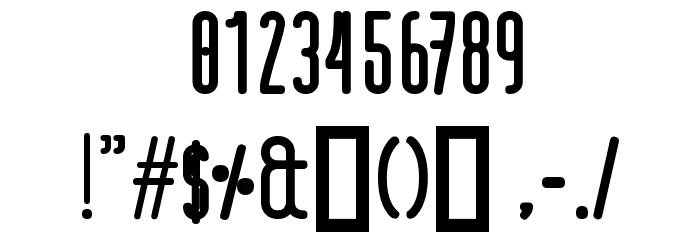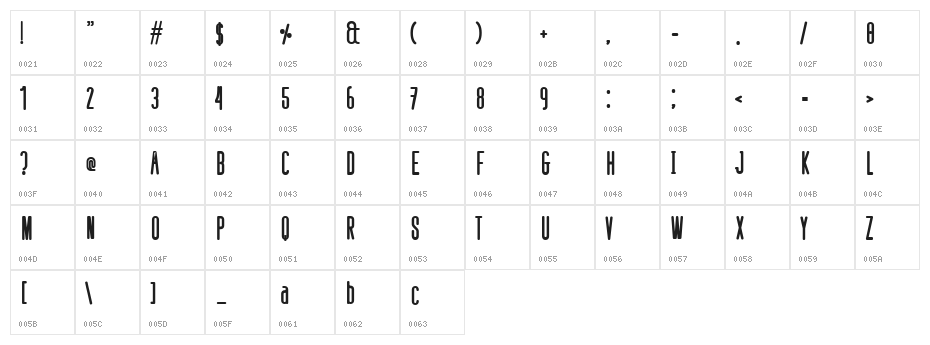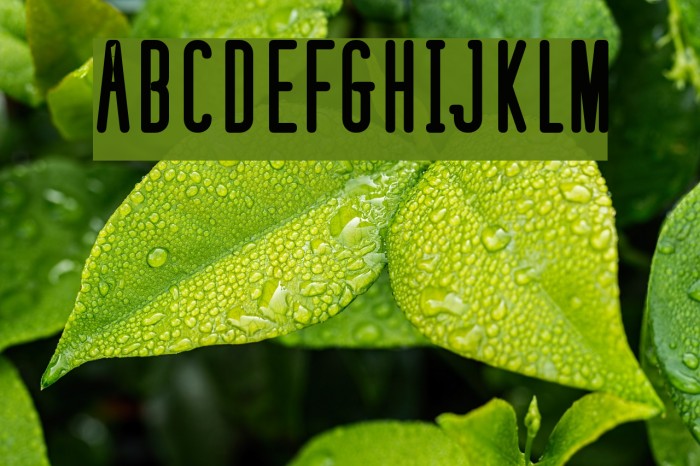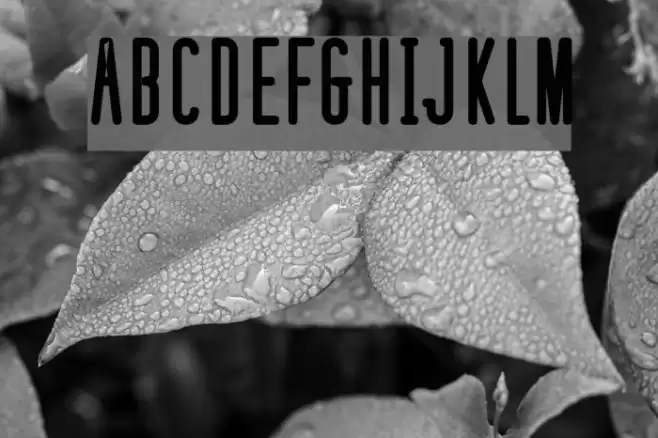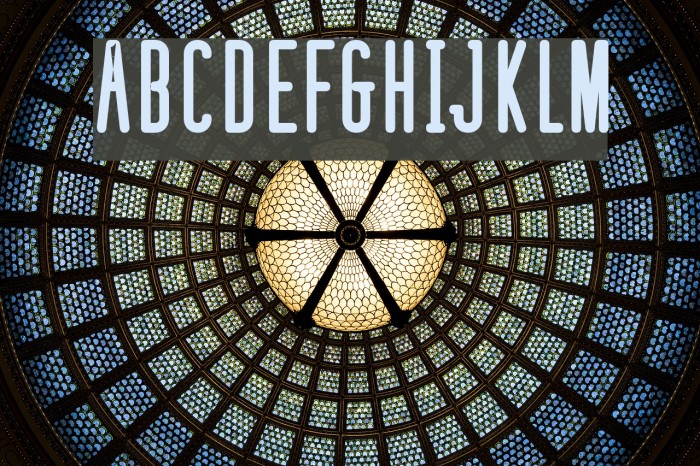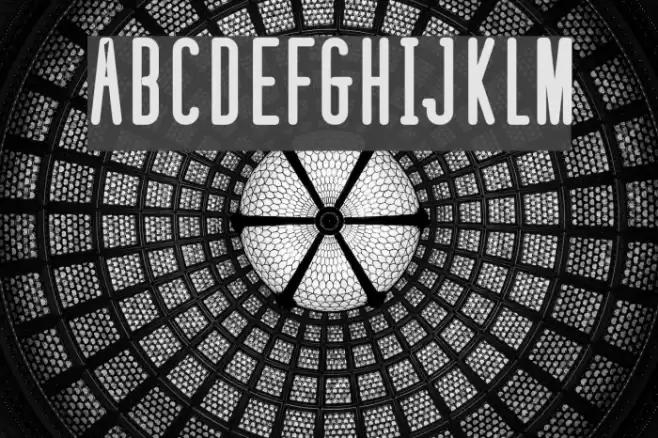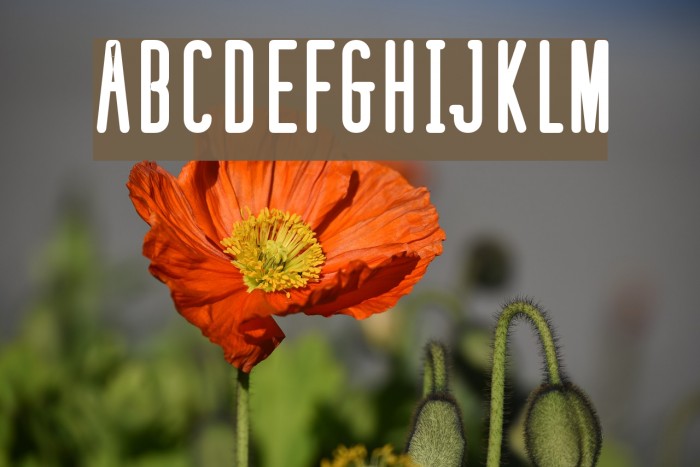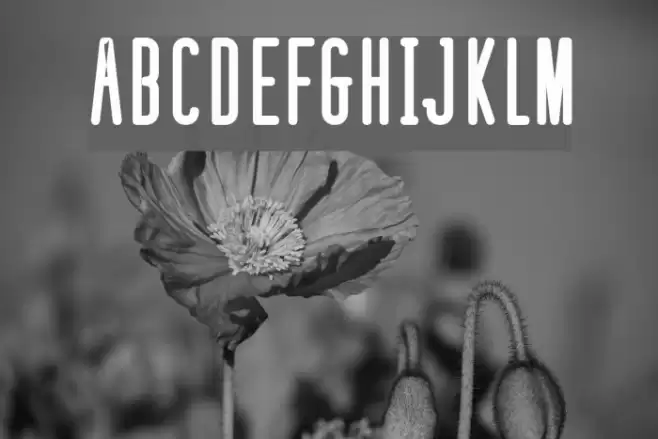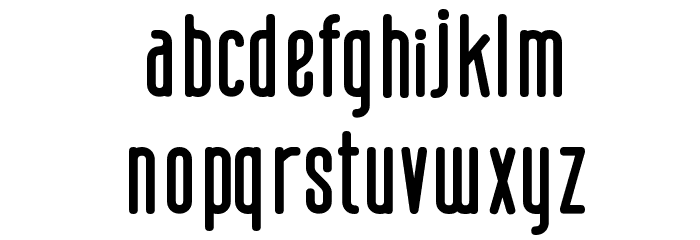
defatted milk Bold Font
defatted milk Bold Description
This font features a bold and modern design with a distinctive, slightly condensed appearance. The characters are tall and narrow, giving it a sleek and streamlined look. The uppercase letters are uniform in height, while the lowercase letters maintain a consistent style that complements the uppercase. The numerals are clear and easy to read, with a similar height to the uppercase letters. Special characters are well-defined, maintaining the overall aesthetic of the font. The strokes are consistent in thickness, providing a balanced and cohesive appearance.